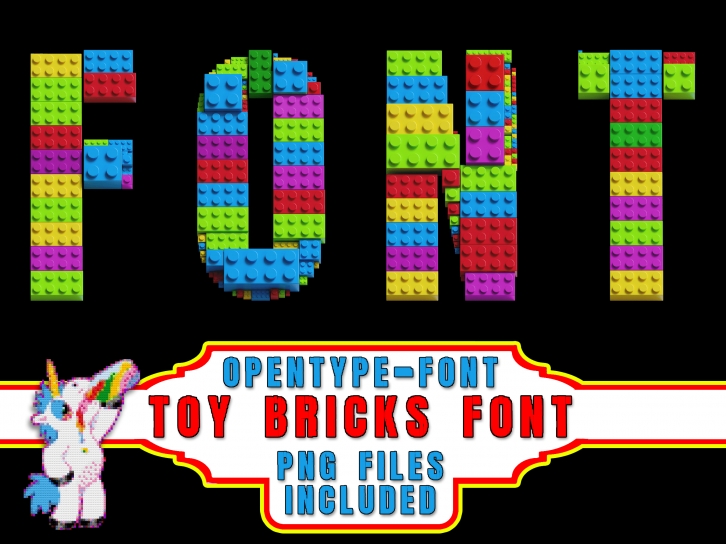
Multicolor Toy Brick is a fun and playful color font. Whether you use it for cartoon-related designs, children’s games, or just any creation that requires a quirky touch, this font will be an amazing choice.